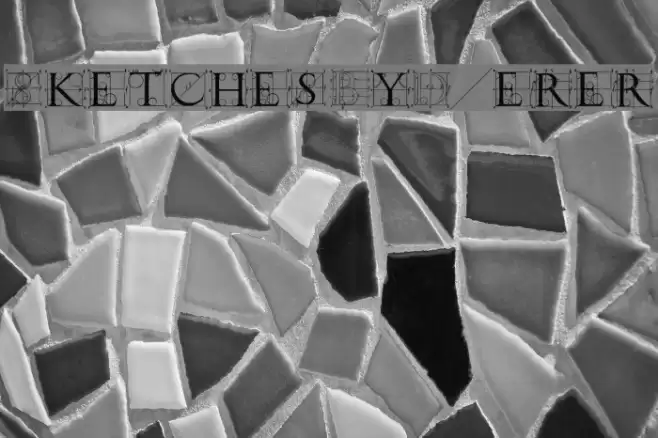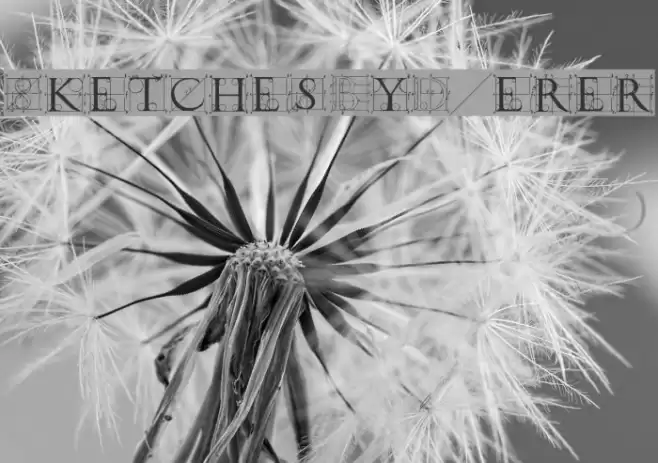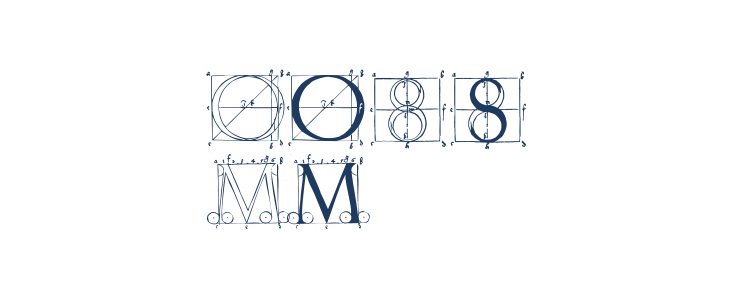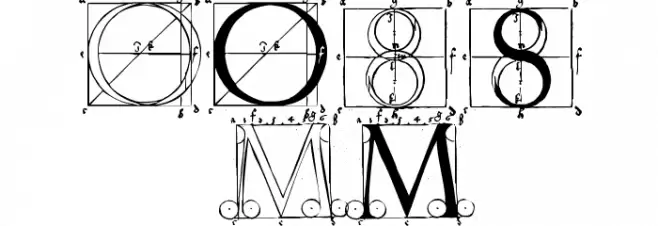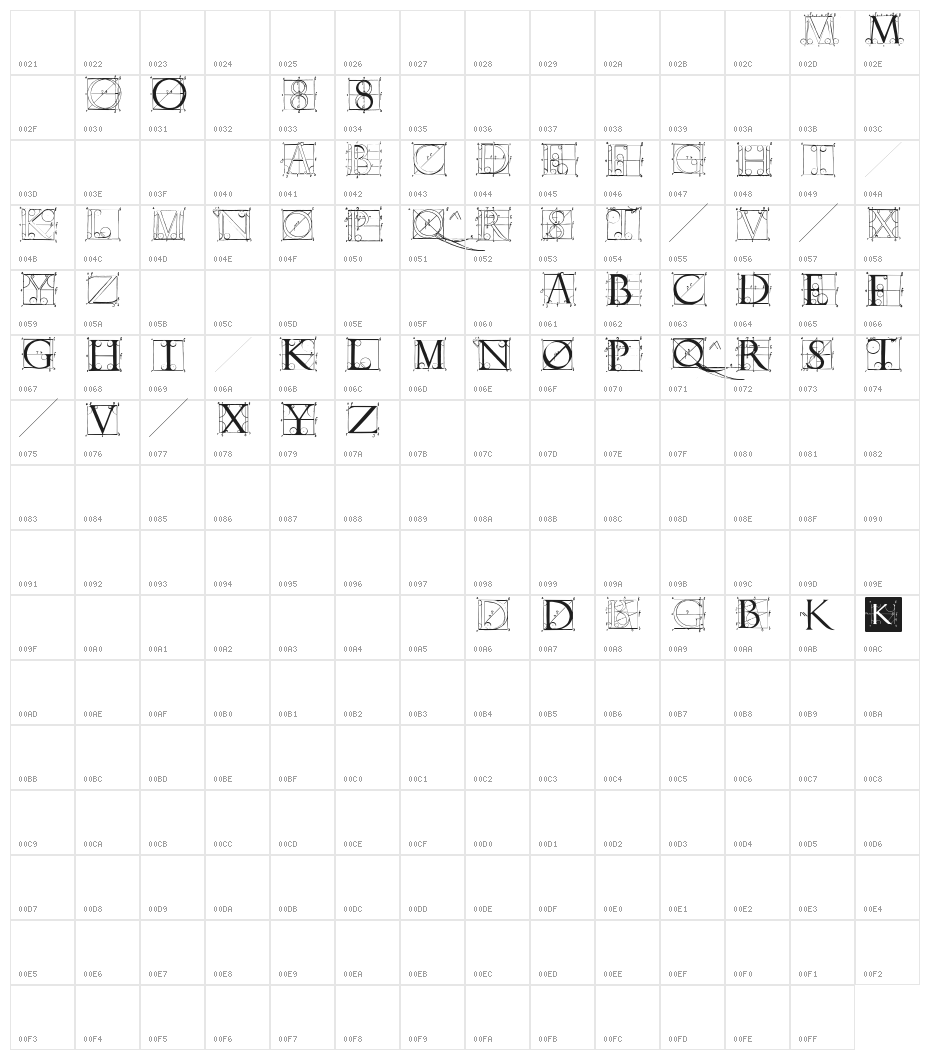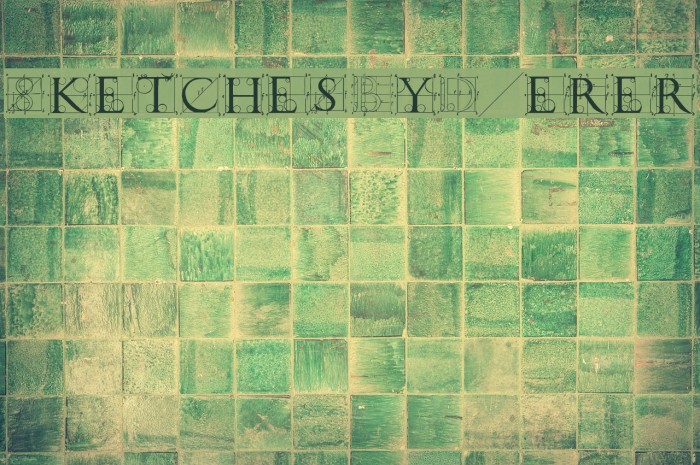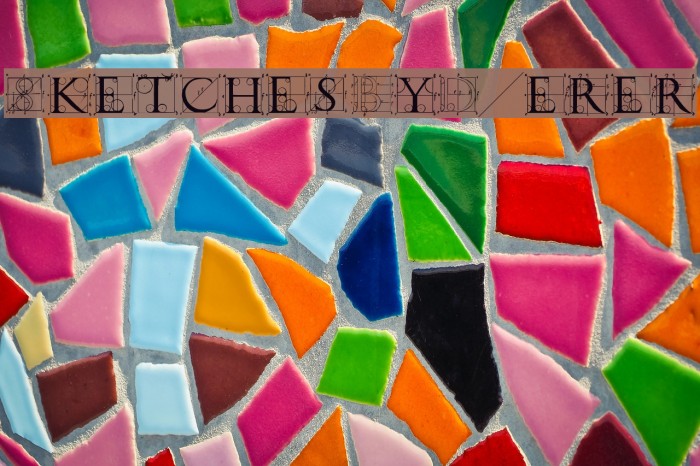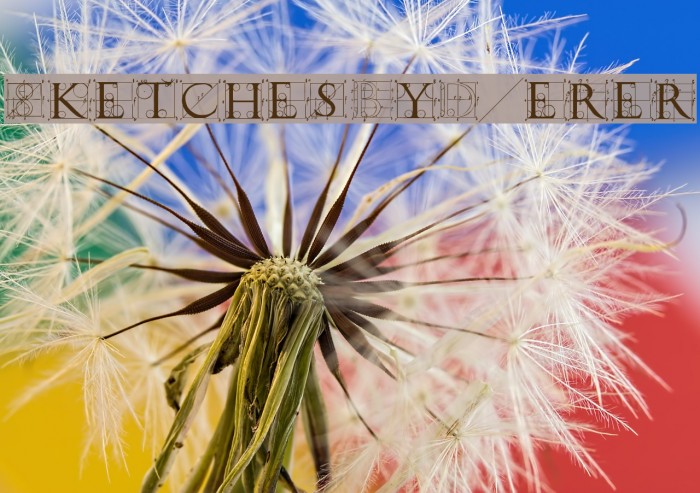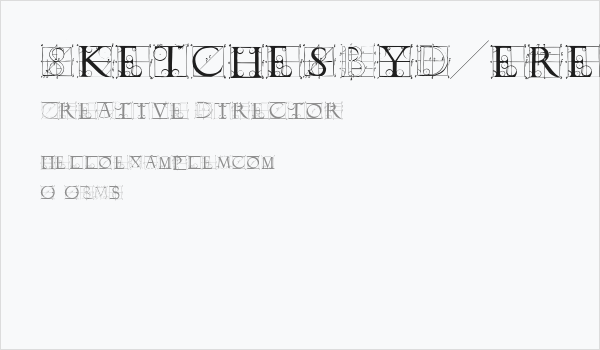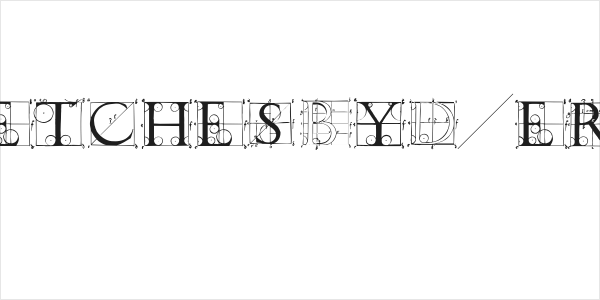
SketchesByDuerer Font
SketchesByDuerer Description
This font is a meticulously crafted serif typeface that draws inspiration from classical design principles. Each letter is constructed with geometric precision, featuring circles and lines that guide the proportions and alignments. The uppercase letters exhibit a strong, authoritative presence with their bold strokes and sharp serifs, while the lowercase letters maintain a harmonious balance with a slightly softer touch. The numerals are equally well-defined, adhering to the same geometric rules, ensuring consistency throughout the typeface. This font is ideal for projects that require a touch of elegance and historical reference, making it suitable for formal documents, book covers, and artistic endeavors.
A geometric serif font inspired by classical design, featuring bold strokes and precise proportions from Uncategorized fonts.
- Proposed Projects: Ideal for formal documents, book covers, artistic projects, and any design requiring a historical or elegant touch.
- Overall Style: Classic
- Use Case: Headlines, Logos, Artistic projects